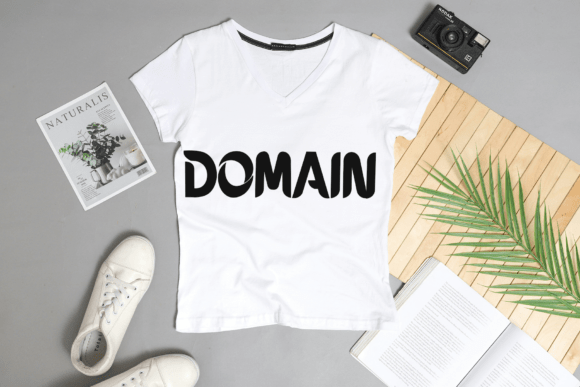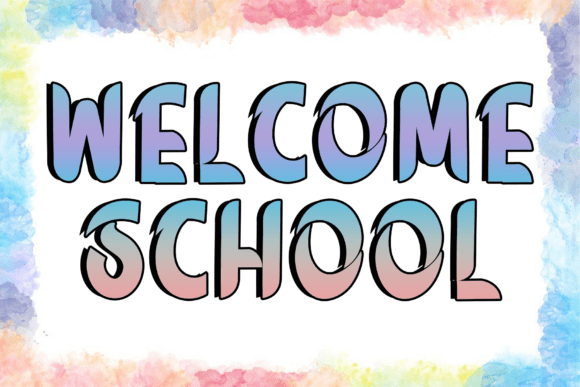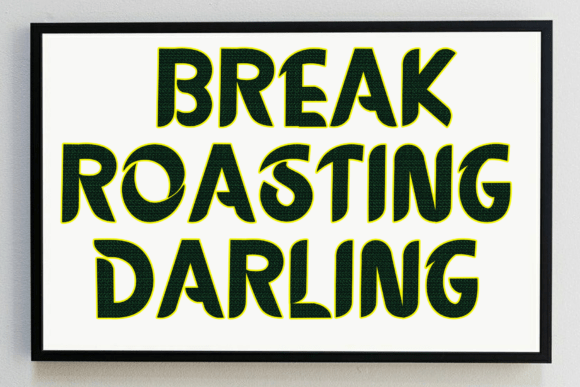
Introduction to Lasering Font
Have you ever been working on a creative project, pouring your heart and soul into it, and suddenly, you stumble upon the perfect font that elevates your entire design? That’s exactly what happens when you discover the Lasering Font. Its bold, modern display style and futuristic flair make it a game-changer for designers looking to add some edge to their work.
Whether you’re working on a branding project, a sports-themed design, or a tech-focused concept, the Lasering Font is the perfect choice. Its sharp angles and unconventional cuts give it a strong presence that demands attention. And the best part? It’s available for free download, making it a valuable resource for designers of all levels.
With its high-quality design and transparent background, the Lasering Font is a must-have for any creative project. It’s the perfect tool to add some professionalism and energy to your work, and we’re excited to dive deeper into what makes this font so special.
Key Features of Lasering Font
- Unique, high-quality design ideal for creative projects, such as graphic design, digital art, and typography.
- Perfect for designers looking for a unique, high-quality font to enhance their creative projects.
Honest Review: Lasering Font
As a designer, I’m always on the lookout for high-quality design resources to elevate my creative projects. Recently, I had the chance to try out the Lasering Font, and I’m excited to share my honest review with you.
Here’s what I like about it: ✨ The font is available for a free download, which is a huge plus for designers on a budget. The transparent background option is also a great feature, allowing me to easily combine it with other design elements. The quality of the font is top-notch, with crisp lines and smooth curves that make it perfect for a variety of creative projects.
However, there are a few limitations to keep in mind: ⚠️ The font only comes in a limited number of weights and styles, which might not be ideal for designers who need a wider range of options. Additionally, the font is only available in a few file formats, which might cause issues for designers who prefer to work with specific software.
Overall, I’m impressed with the Lasering Font, and I think it’s a great addition to any designer’s toolkit. Just be aware of the limitations, and you’ll be all set to create some amazing designs.
- High-quality font with crisp lines and smooth curves
- Transparent background option for easy combination with other design elements
- Limited number of weights and styles
Common Use Cases for Lasering Font
The Lasering Font is a versatile design resource suitable for a variety of creative projects, including logos, brochures, and social media graphics. You can also download the font for free and use it in your personal or professional projects, making it an excellent addition to your design toolkit.